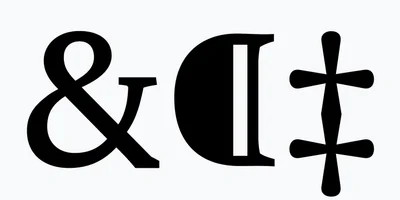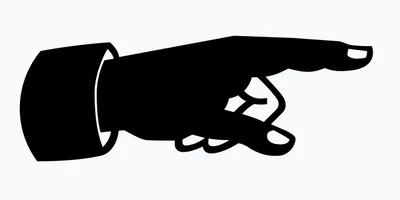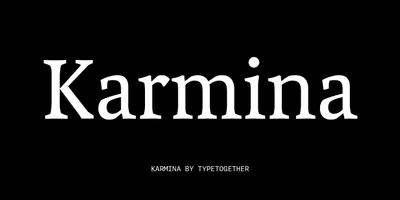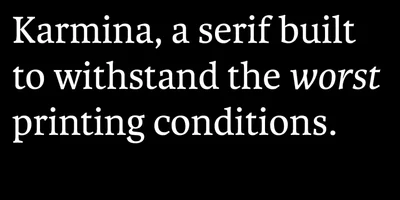
Blanco vs Karmina
Blanco and Karmina are both serif typefaces sharing a readable foundation. Where Blanco leans modern, elegant, Karmina brings bold. Compare which suits your Editorial project.
Recommended: Blanco
- modern, elegant design character
- Suited for Magazines and Books
Consider: Karmina
- bold design character
- Suited for Publishing and Corporate